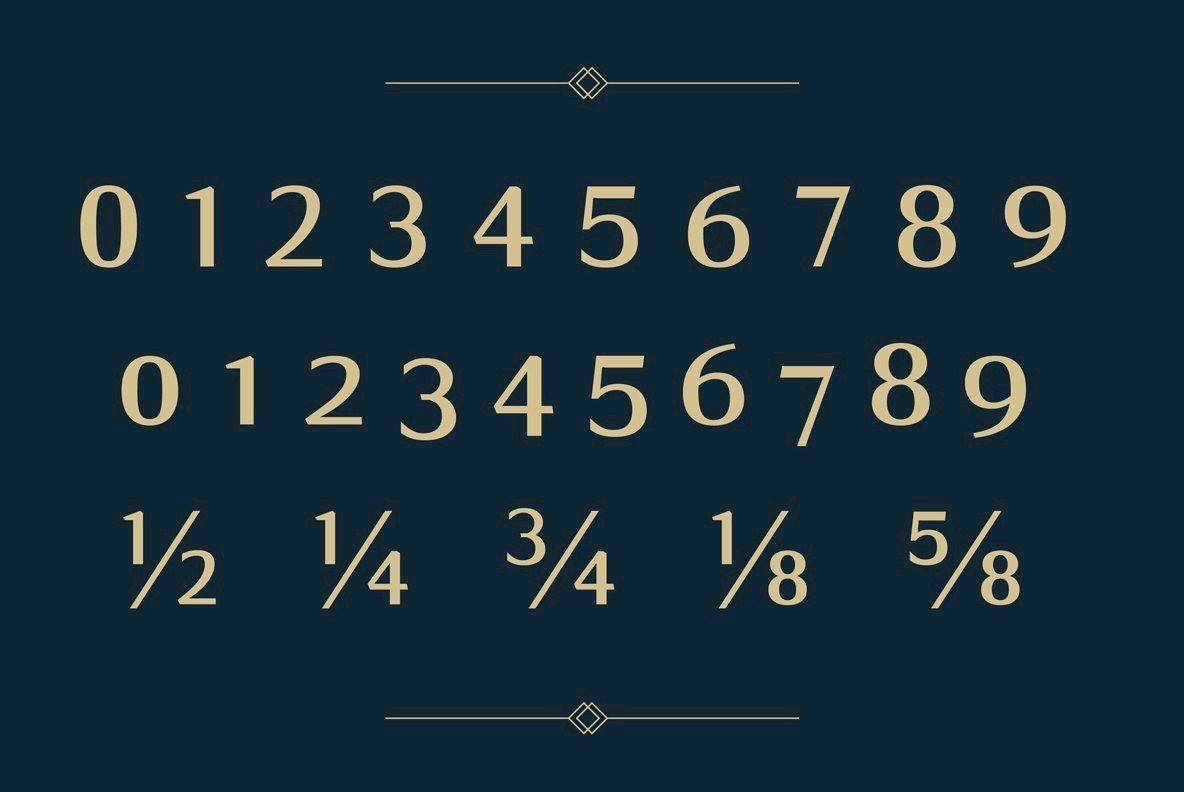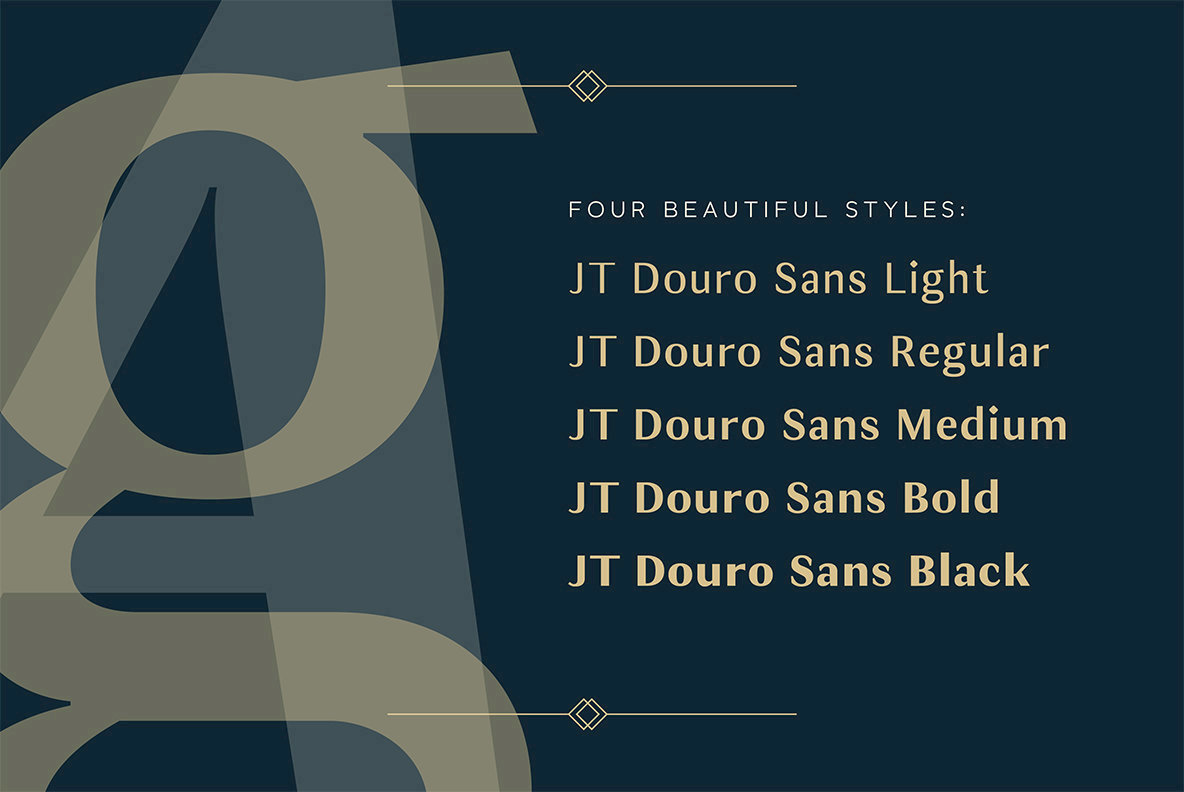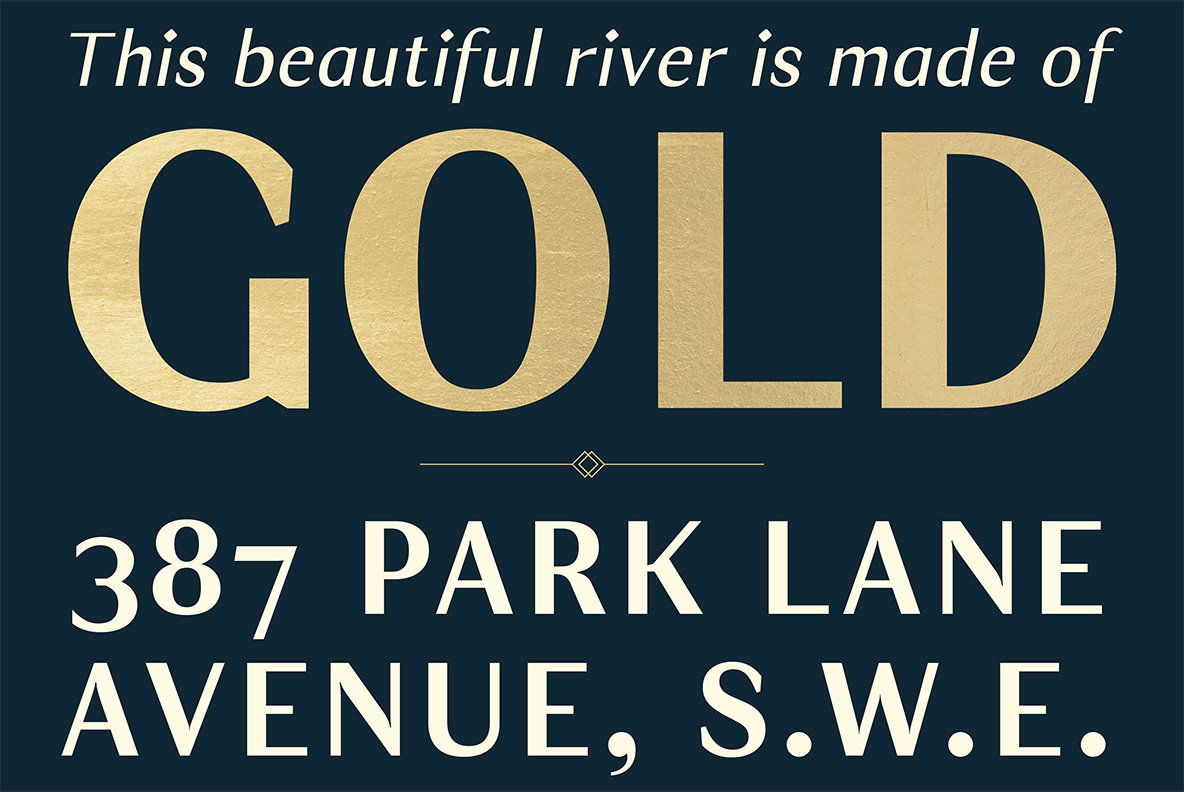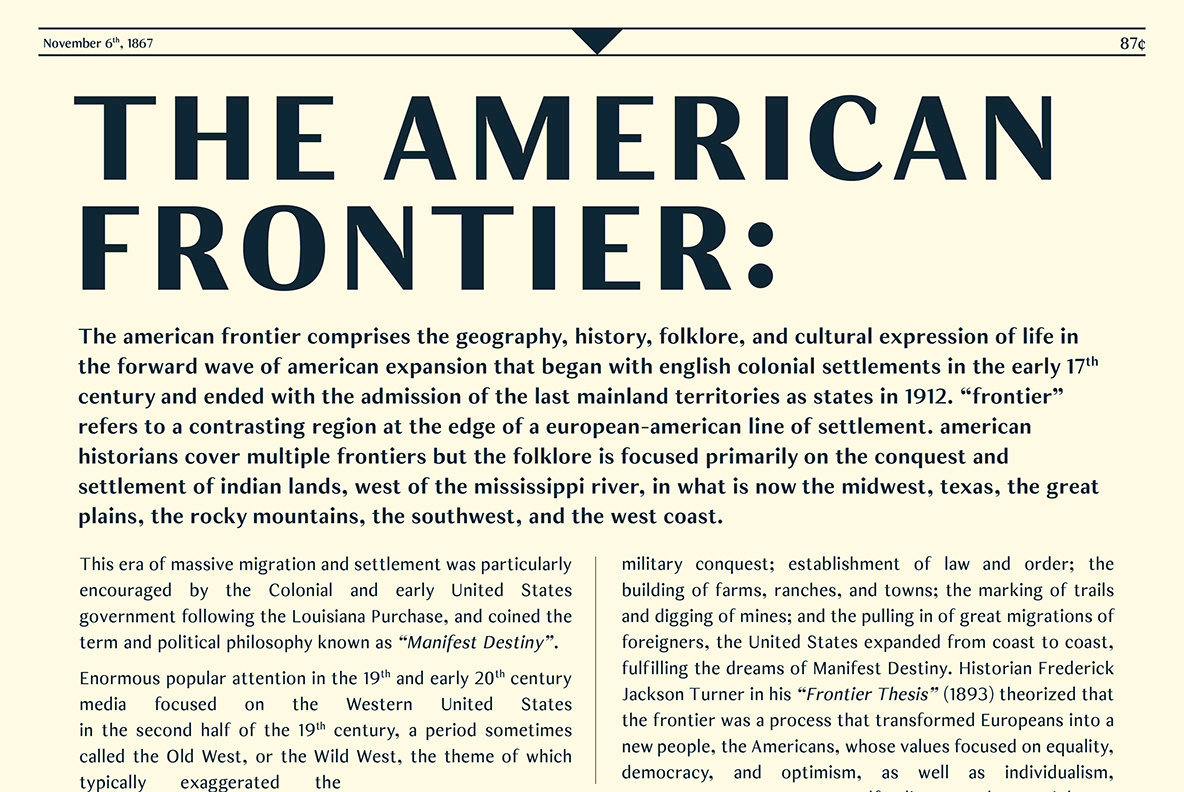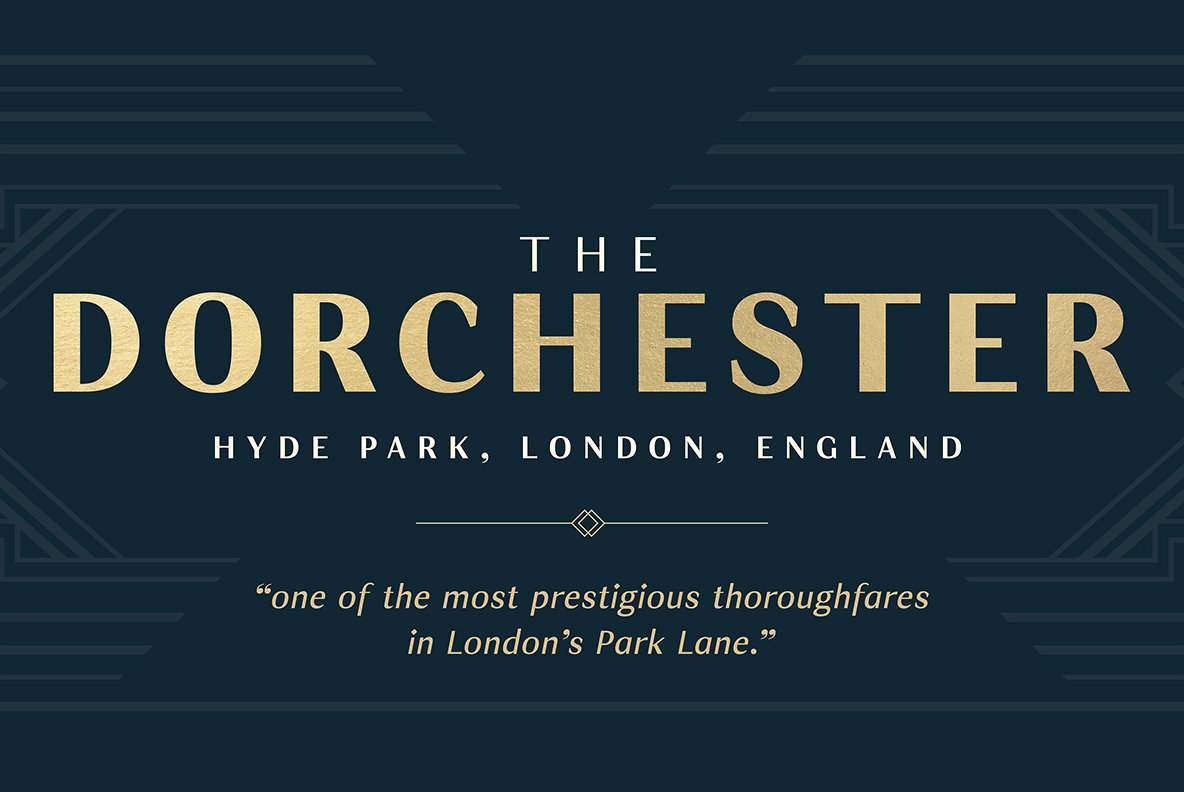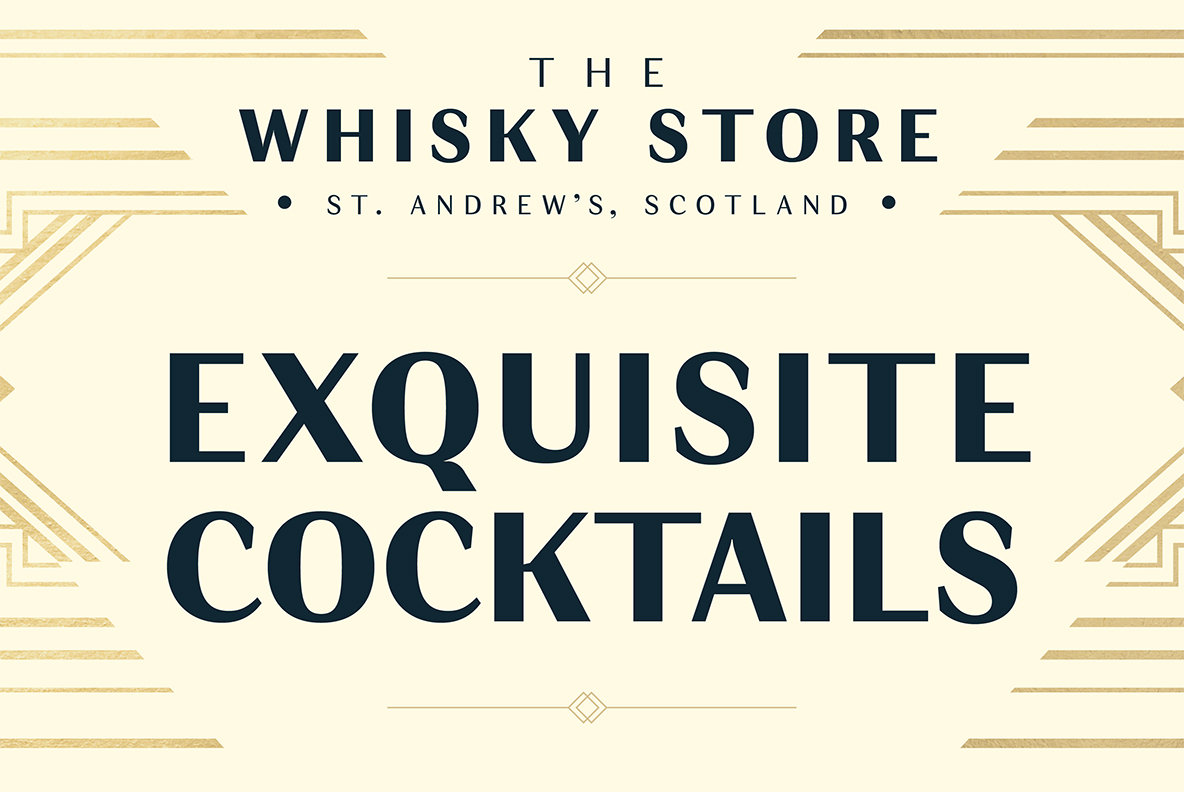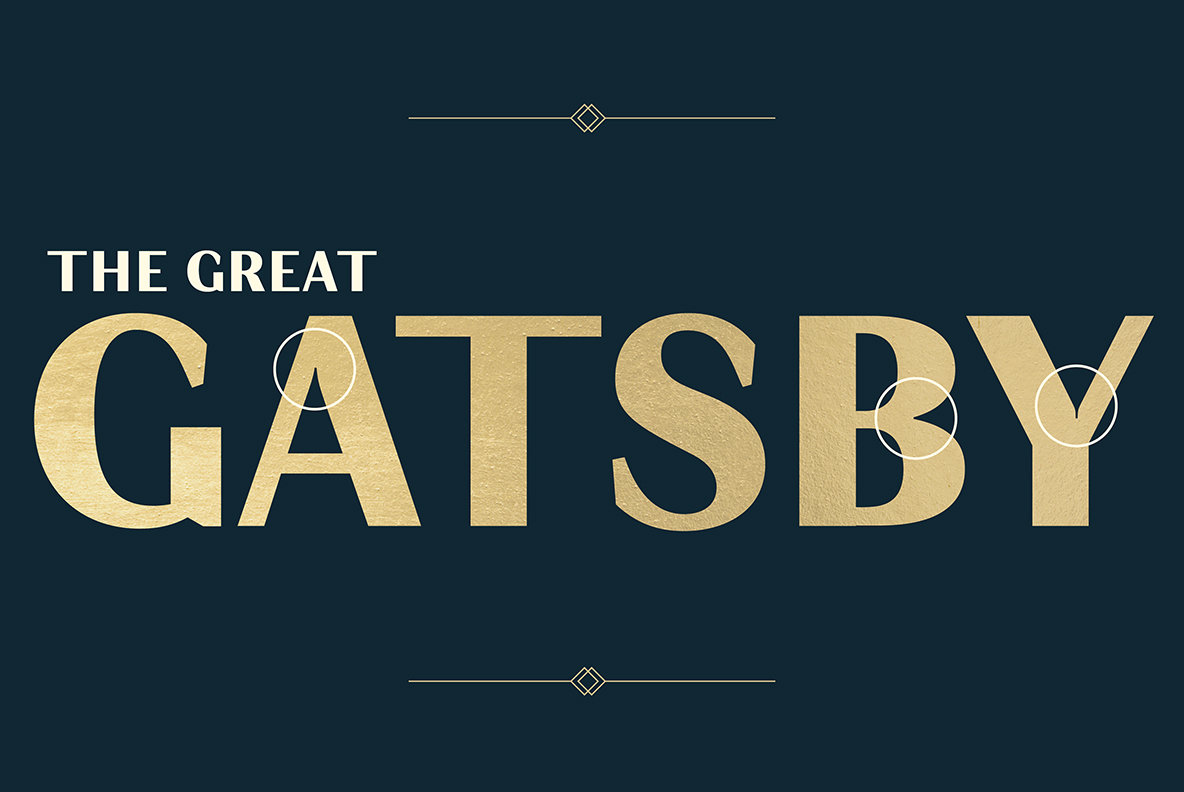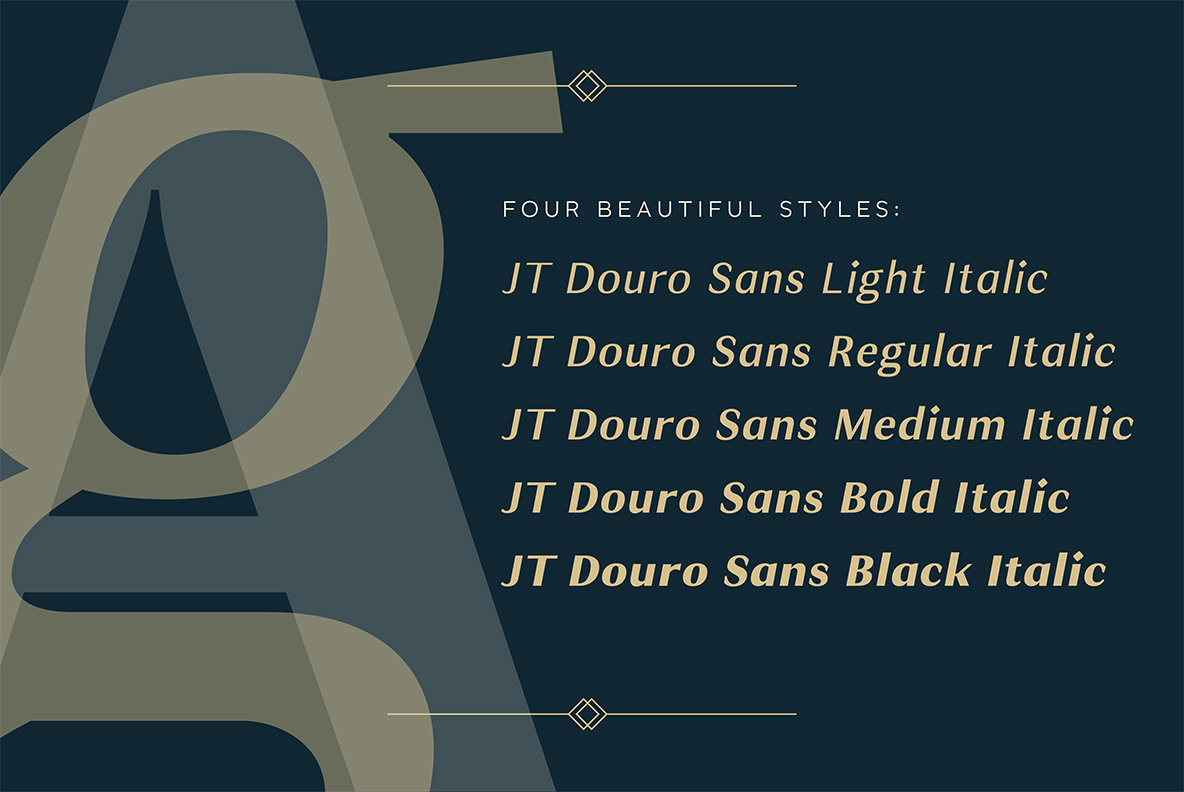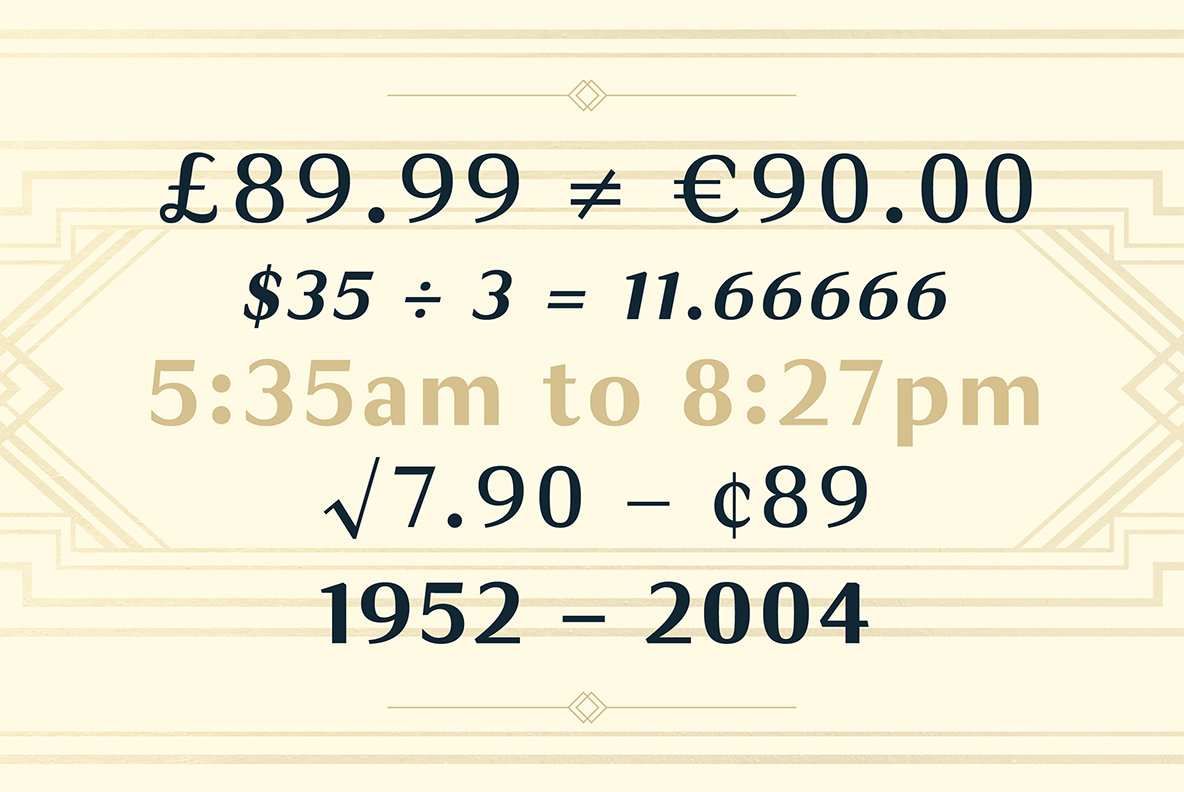
JT Douro Sans Font
Inspired by the art deco movement in France at the turn of the last century and in United States in the 1930s. Boasting over 500 glyphs, with its multiple ligature sets and alternatives, this is a wonderful typeface to use on posters, magazines and on promotional collateral!